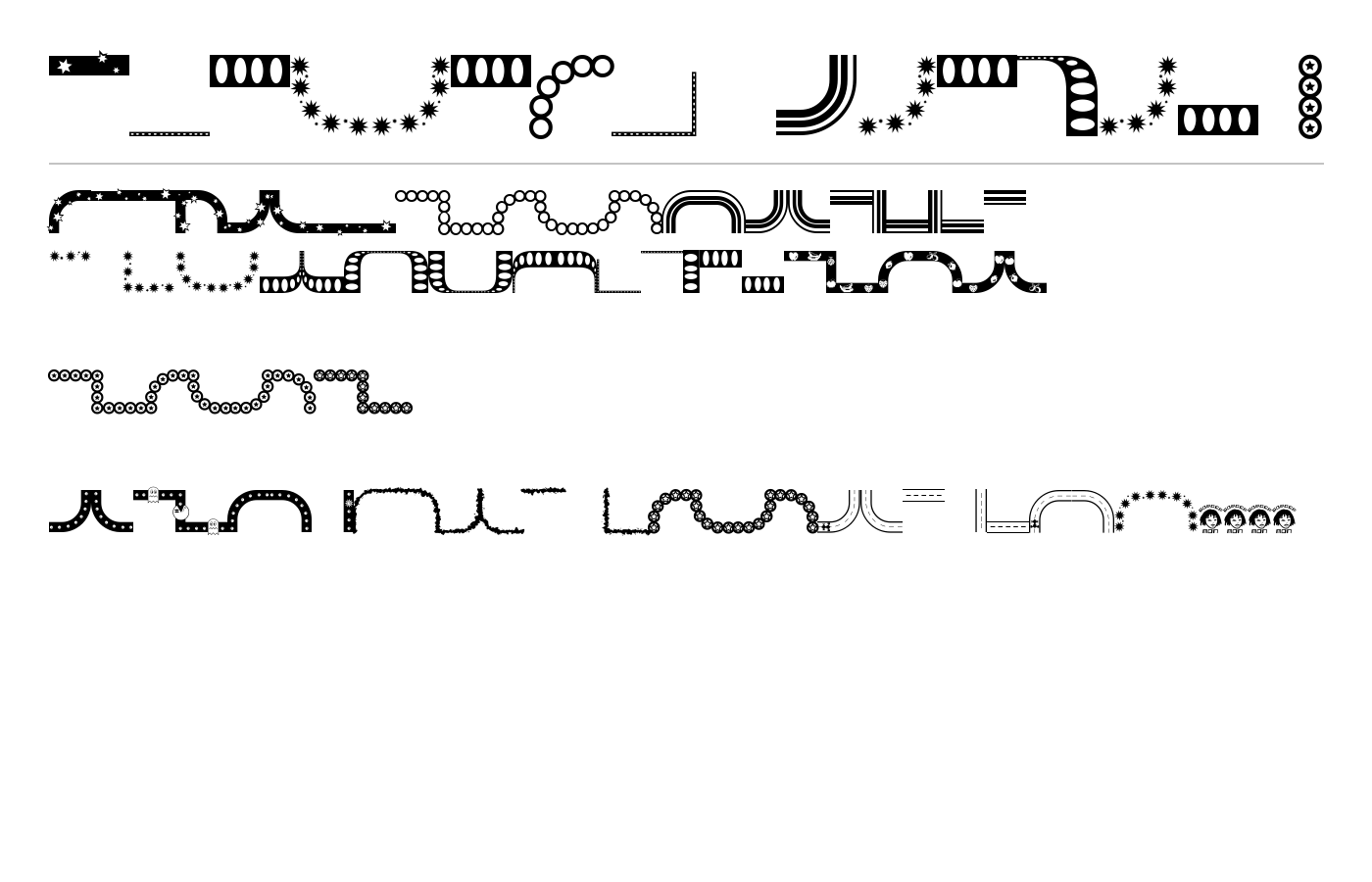
BorderMon Series 1 is a highly decorative and playful display font that features intricate, whimsical patterns and shapes within each character. Its unique and varied strokes make it perfect for eye-catching headlines, logos, or creative designs that seek to convey a fun and artistic vibe. This font works best in vibrant and imaginative branding or poster projects where strong visual impact is key.
BorderMon Series 1 Font